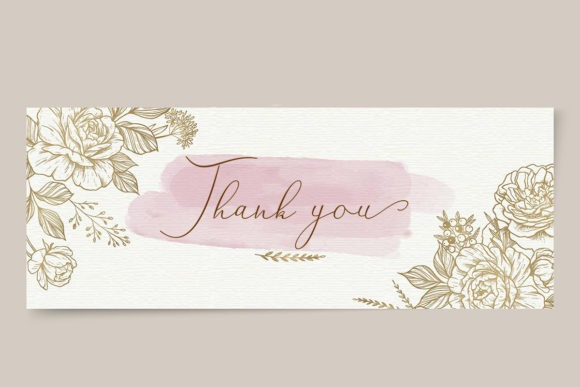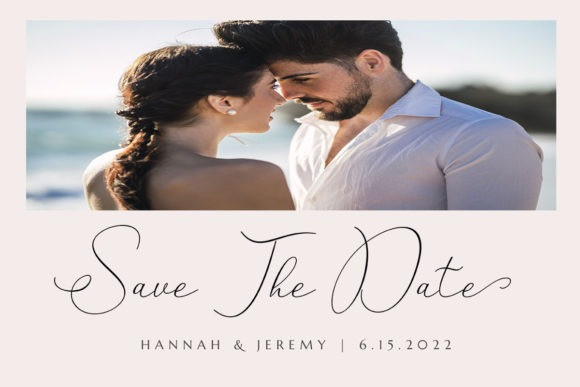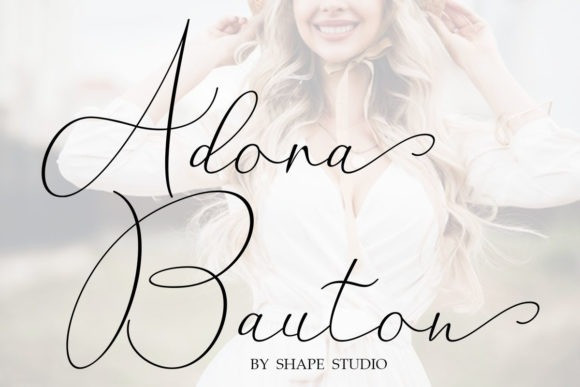
Adora Bauton Font
Adora Bauton Script Font is a lovely and timeless handwritten font. It is the best choice for creating eye catching logos, branding and quotes. This font is PUA encoded which means you can access all of the glyphs and swashes with ease!